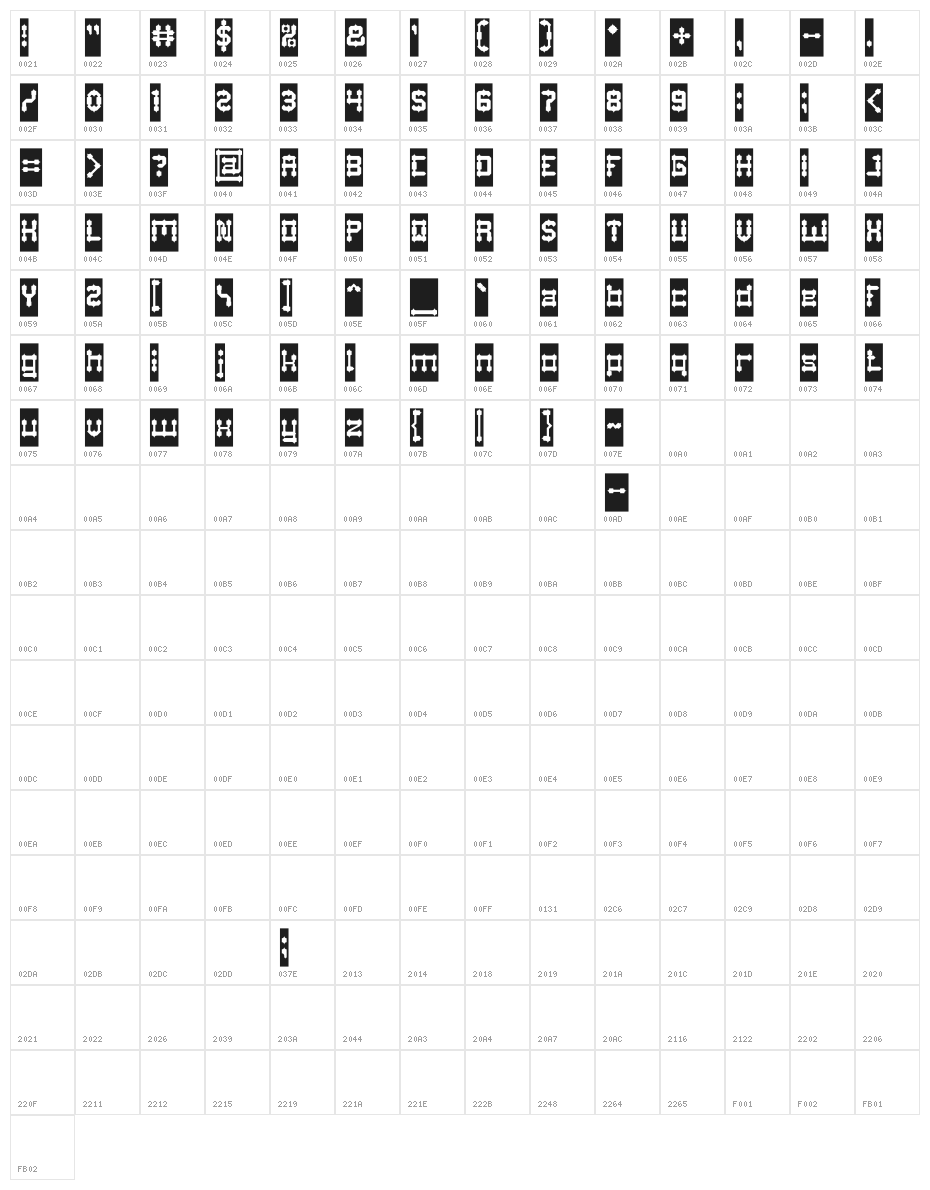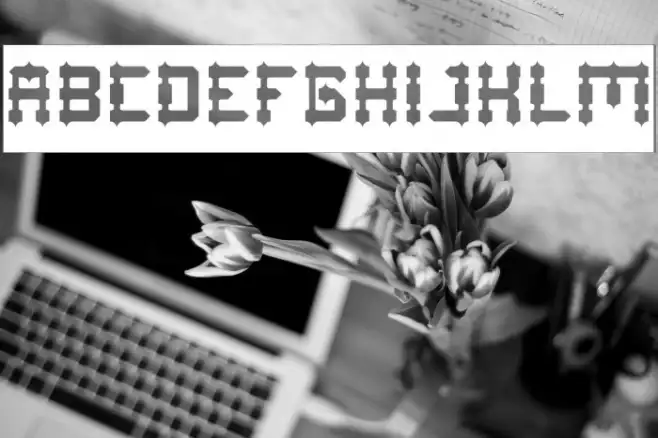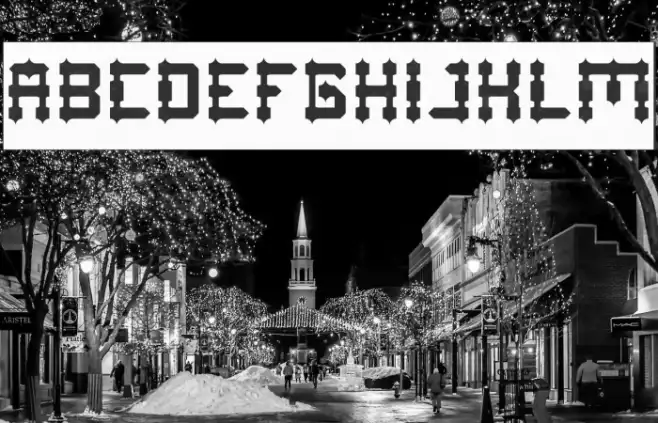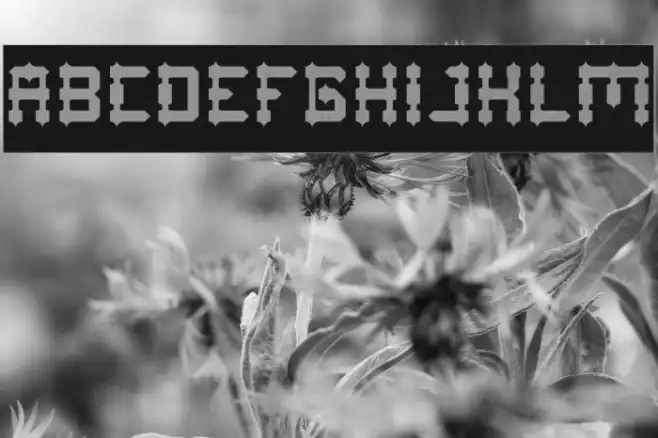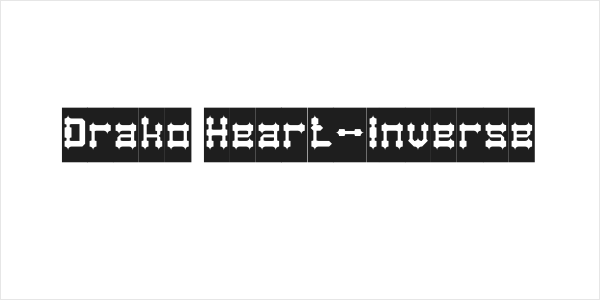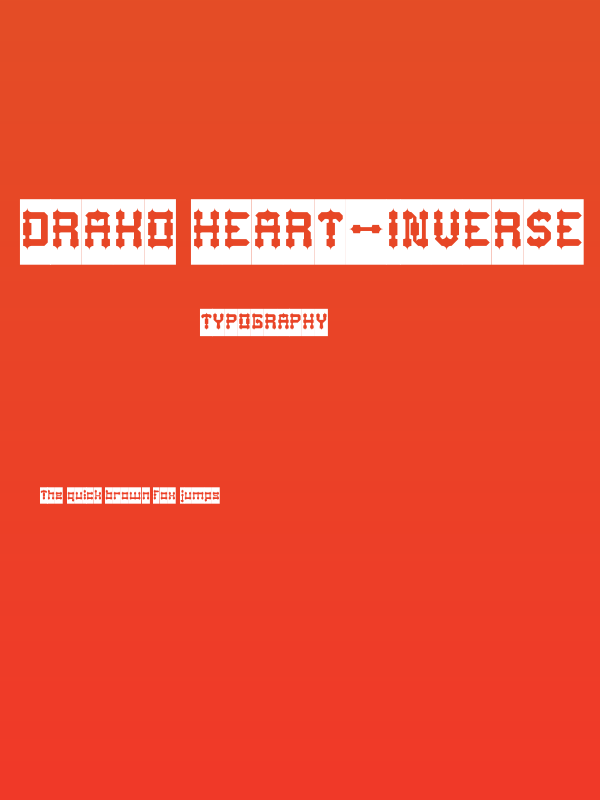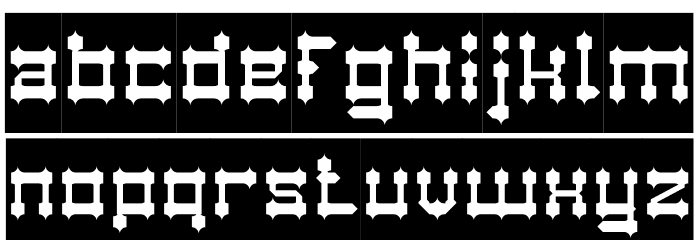
Drako Heart-Inverse Font
Drako Heart-Inverse Description
This font features a bold and striking design with sharp, angular edges and a geometric structure. The characters are highly stylized, with unique cut-out shapes that give them a distinctive appearance. The uppercase and lowercase letters maintain a consistent style, while the numbers and special characters complement the overall aesthetic. The font's design is reminiscent of medieval or gothic influences, making it ideal for projects that require a dramatic and eye-catching typeface.
| Overall Style | Gothic, Decorative |
| Proposed Projects | Ideal for use in posters, album covers, video game titles, and branding that requires a bold, gothic aesthetic. |